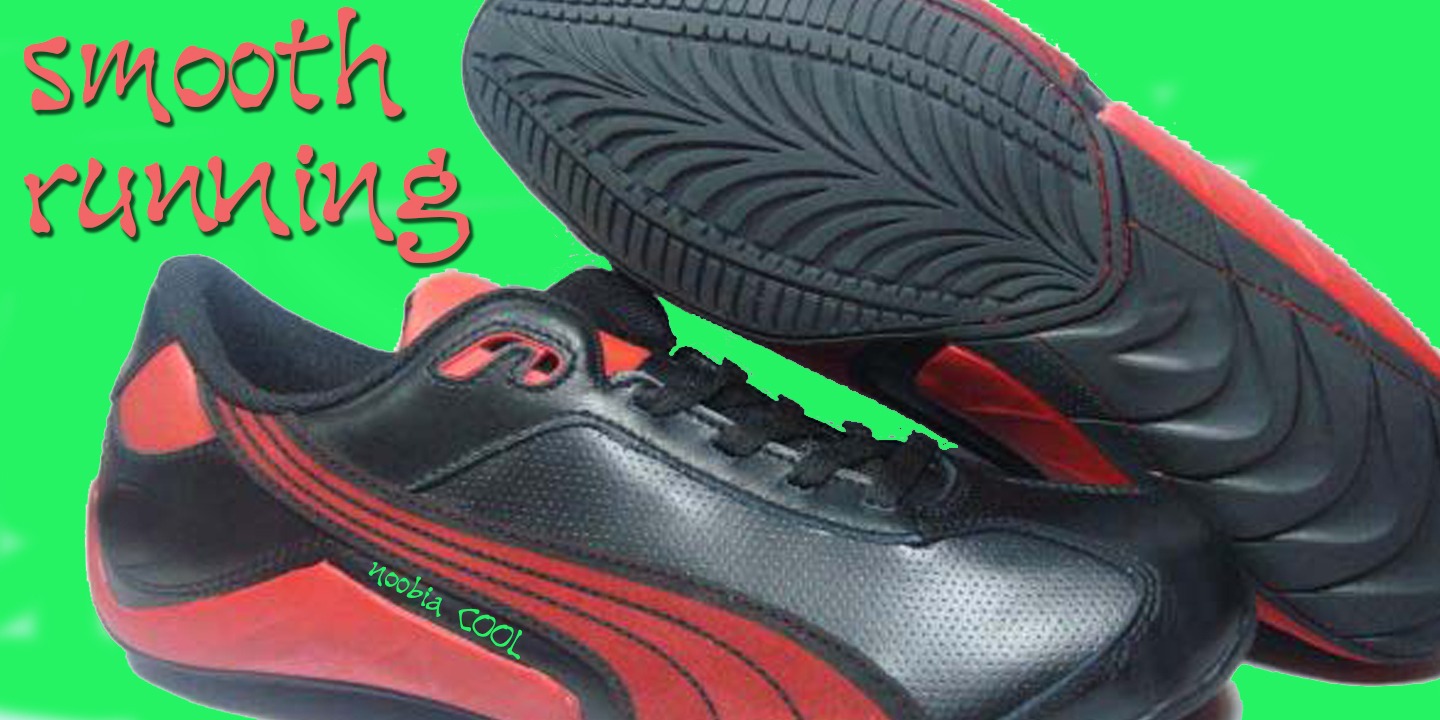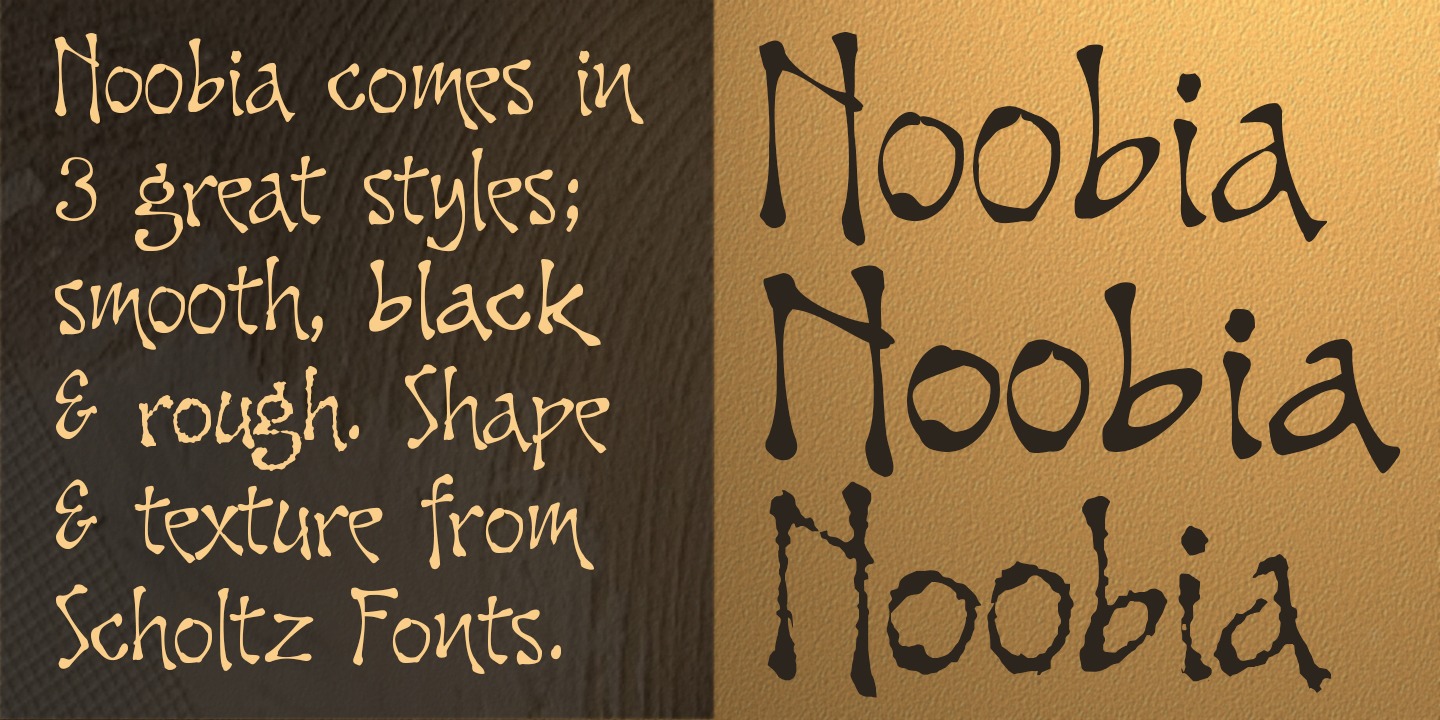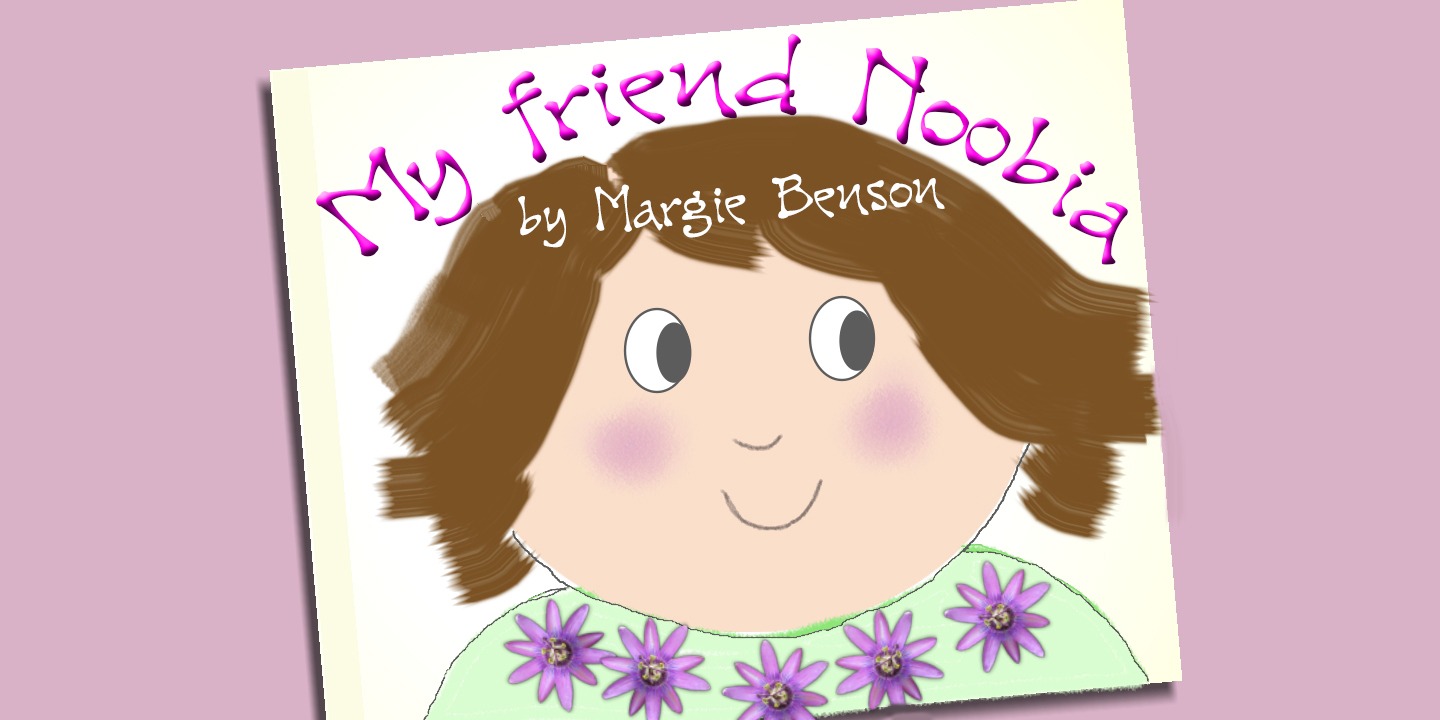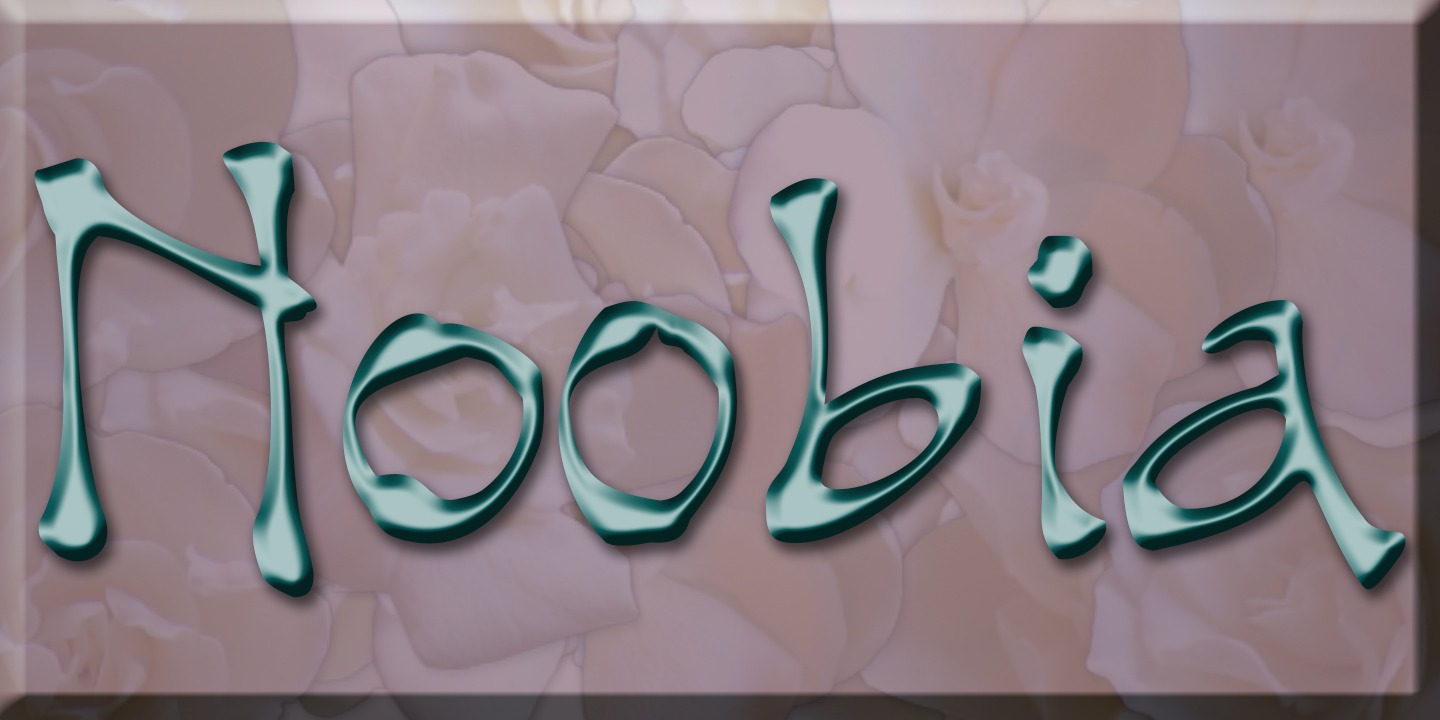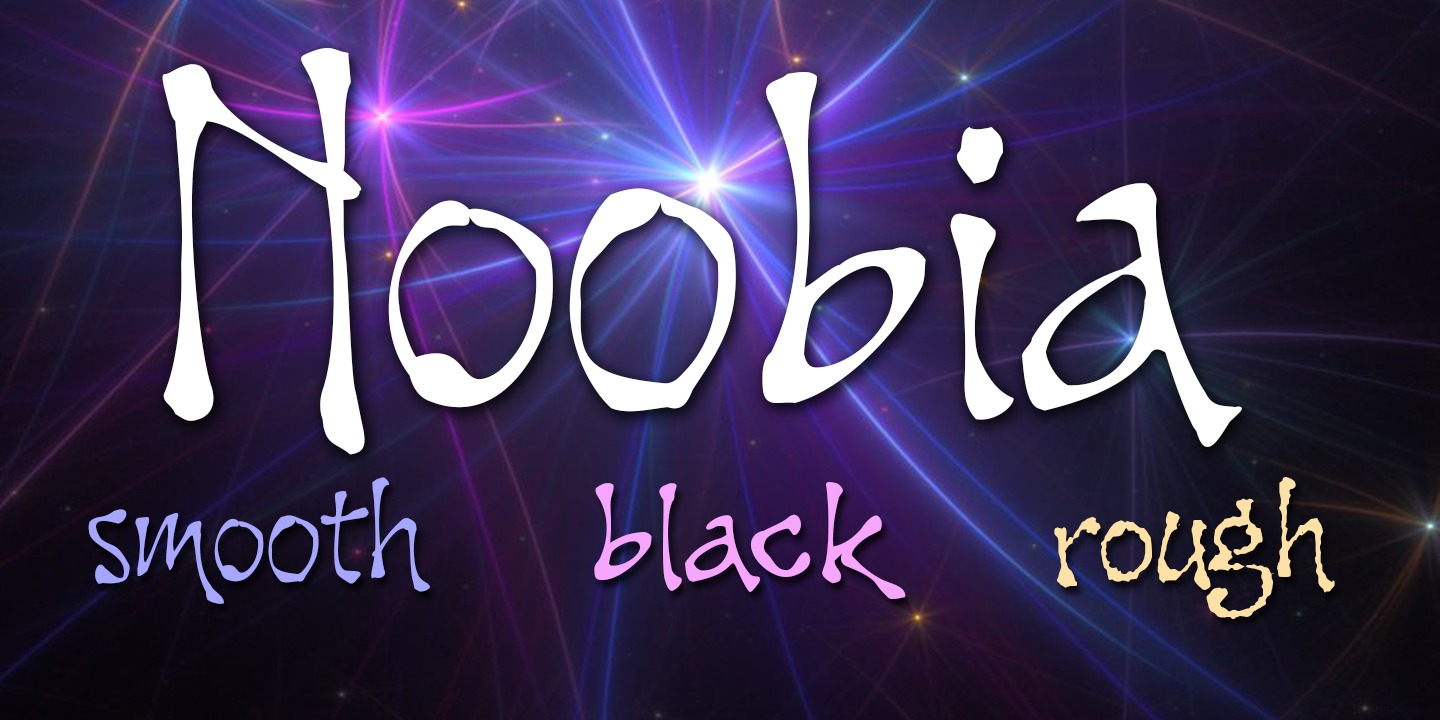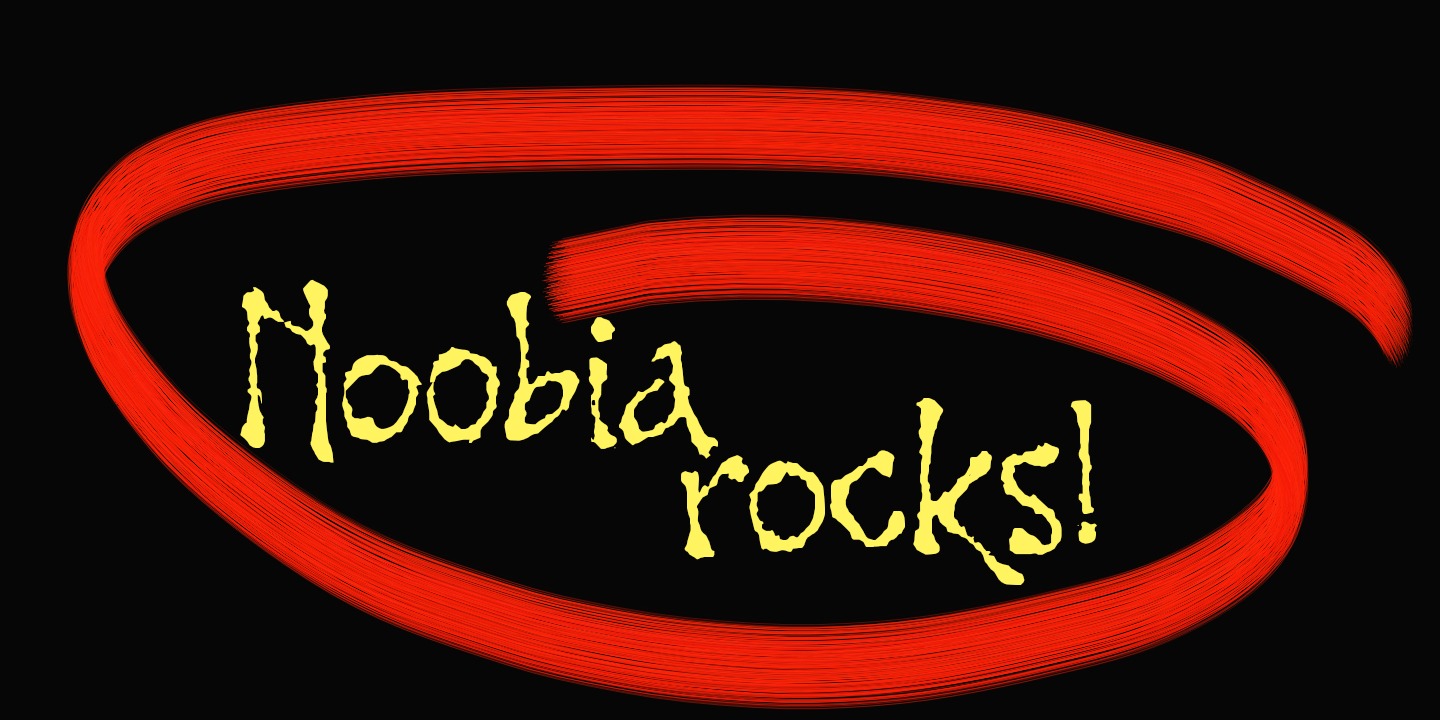
Noobia
Font Family by Scholtz Fonts
Noobia is a casual, energetic handwritten font, with plenty of movement. Its moving baseline creates a funky, busy, dramatic impression.
With its informal, immediate style, Noobia is like a swift swash of text handwritten with a slightly overfilled ink pen. This impression is exaggerated by blobs at the beginning and end of pen strokes. Noobia makes a simple, direct statement, bypassing complexity and superficiality. It's just an in-your-face, immediate font. It 's the font you'd use for a quick, hand drawn note or notice. Noobia comes in three great styles:
Noobia Smooth - use it for ad media for anything from sports equipment to slinky lingerie, wine labels to washing powder packaging.
Noobia Black - use it anywhere to emphasise Noobia Smooth, and on posters and children's book covers.
Noobia Rough - use it for graffiti, music videos, funky clothing hang tags and event posters.
Noobia has all the features usually included in a fully professional font. Language support includes all European character sets.